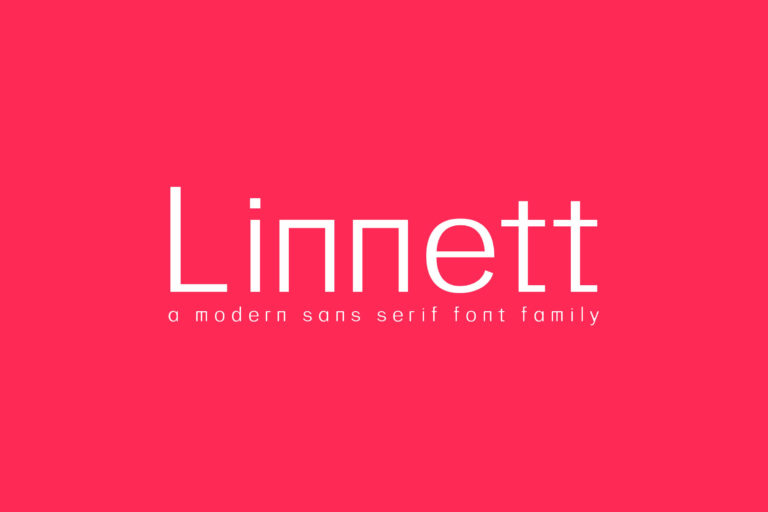
- Linnett Sans Serif Font Family
Linnett is a modern and minimalist rounded sans serif typeface. It comes with 5 weights: Regular, Thin, Light, Round and Bold versions, which contains complete basic glyphs with multilingual support. Linnett will be perfect for packaging, presentations, logo, headlines, lettering, posters, branding, quotes, titles, magazines headings, web layouts, advertising, invitations, packaging design, books, and nearly any creative design.
- Font Weight: Regular, Thin, Light, Round and Bold